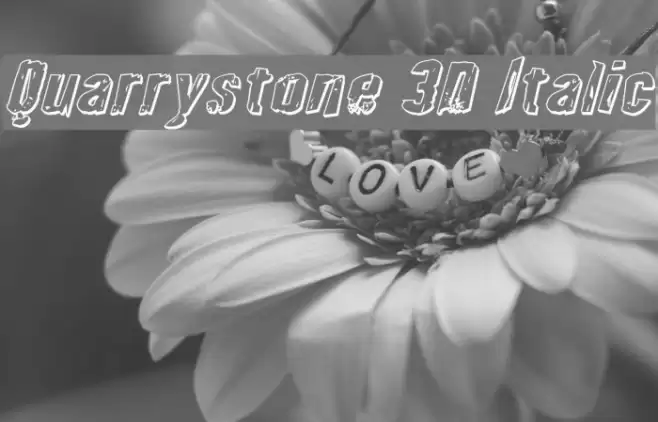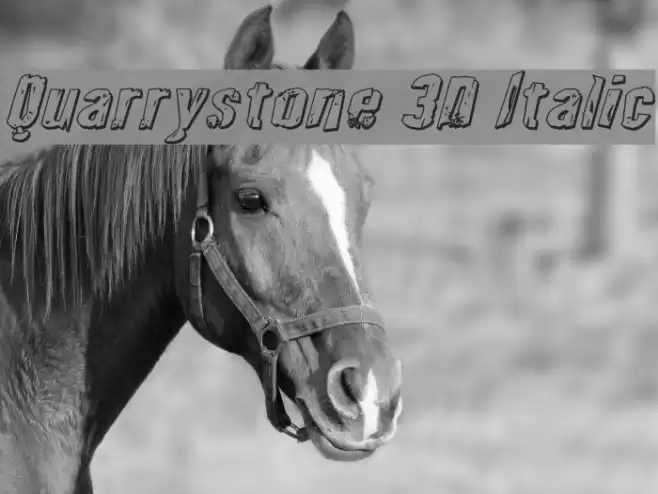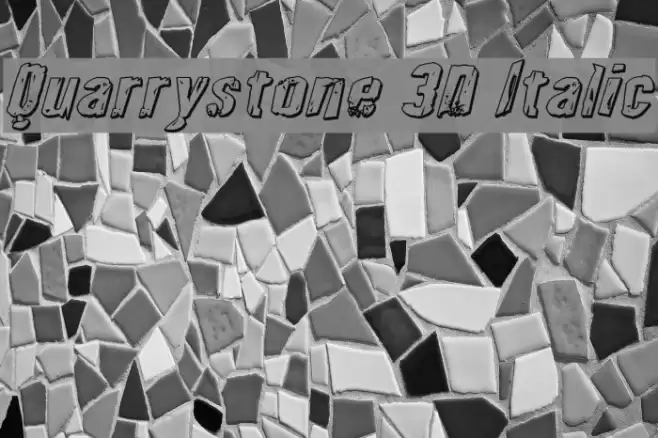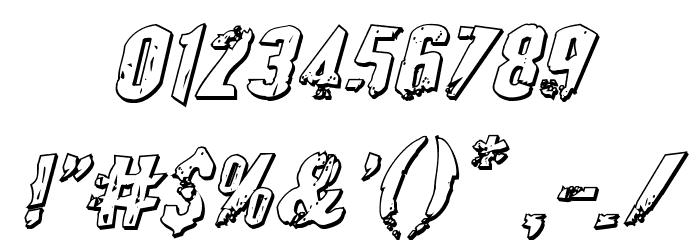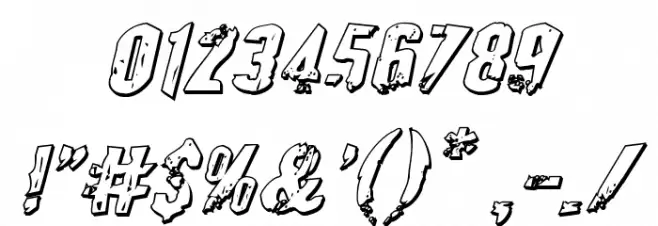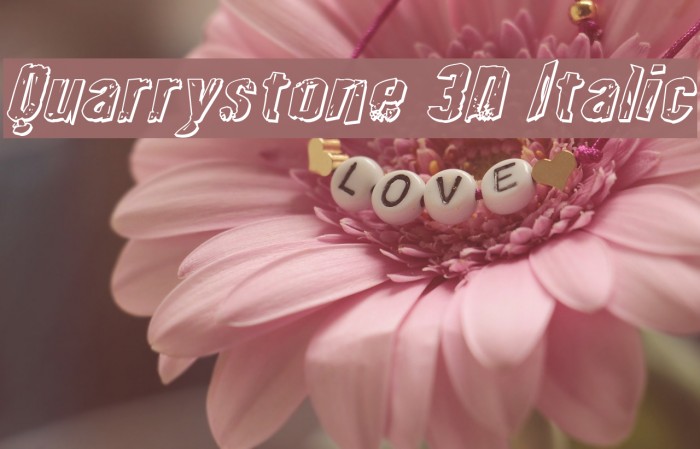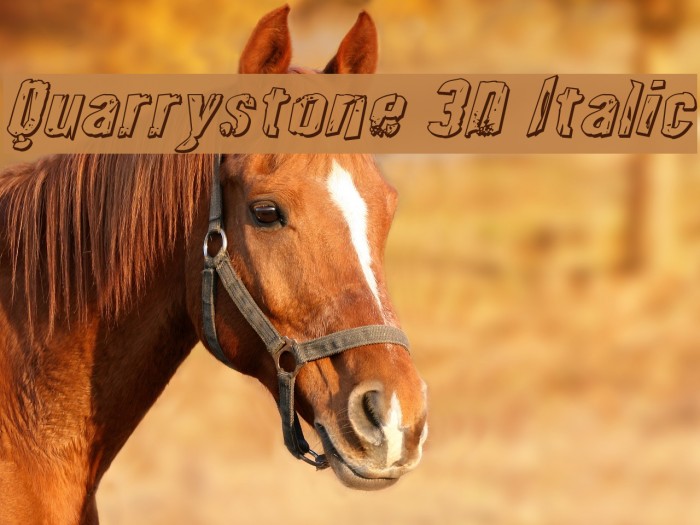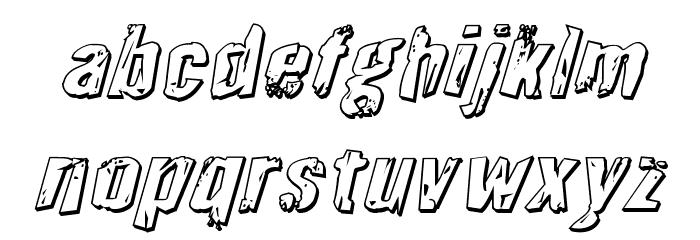
Quarrystone 3D Italic Font
Quarrystone 3D Italic Description
This font features a bold, 3D effect with a distressed texture that gives it a rugged, stone-like appearance. The uppercase and lowercase letters, along with numbers and special characters, are designed with a chiseled look, creating a sense of depth and dimension. The italic slant adds a dynamic feel, enhancing its visual impact. The font's unique style makes it stand out, suitable for projects that require a strong, eye-catching typeface. The character spacing is relatively normal, allowing for readability despite its decorative elements. The overall style is decorative, with a modern twist due to the 3D effect.
A bold, 3D, distressed font with an italic slant and a rugged, stone-like appearance from Fancy fonts.
- Proposed Projects: Ideal for posters, logos, video game titles, or any project needing a bold, impactful typeface.